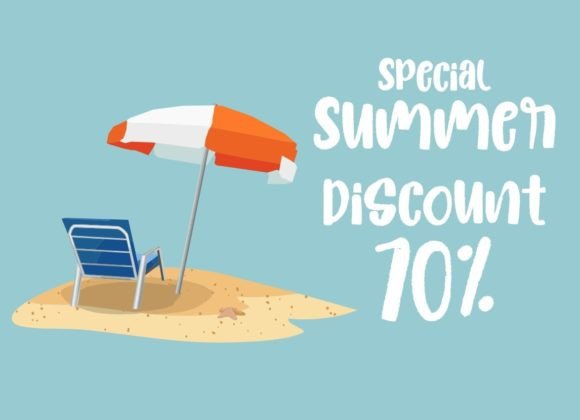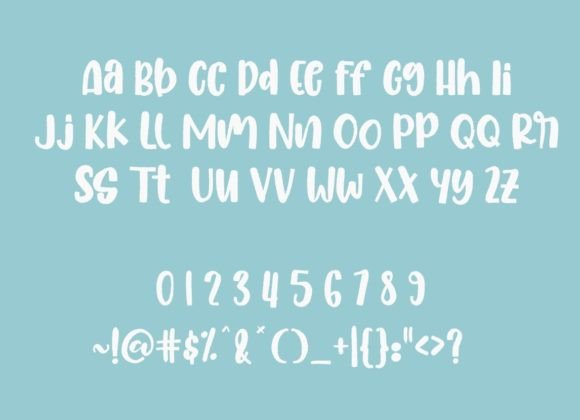
Discover the Perfect Blend of Playful and Professional: Barbie Brush Font
Have you ever found yourself rummaging through your font collection, searching for that one perfect typeface to bring your design project to life? I know I have. It’s that moment when inspiration strikes, and you envision a beautiful, bold, and expressive font that makes your design stand out. That’s exactly what you get with the Barbie Brush Font.
This versatile font is designed to be both playful and professional, making it the perfect addition to your design arsenal. With its thick and solid lines, it’s easy to read and understand, while its conservative bends ensure that it doesn’t overwhelm the eyes. Whether you’re working on a creative project or a corporate design, the Barbie Brush Font is a valuable asset that will elevate your work to the next level.
Barbie Brush Font Key Features
- Font Family: A handwritten script font, designed to mimic the look of a child’s brush strokes.
- Unique Characteristics: The font features a playful, whimsical feel, with subtle imperfections and variations that give it a hand-drawn look.
Barbie Brush Font Review
Overall, I think the Barbie Brush Font is a fun and playful addition to any design project. Here’s what I like about it:
- ✨ Unique and whimsical feel that’s perfect for kids’ projects or feminine branding
- ✨ Customizable with a range of colors and font sizes
- ✨ Great for creating a cohesive brand identity with its matching set of illustrations
- ⚠️ May not be suitable for professional or formal branding due to its playful nature
- ⚠️ Limited in its versatility – it’s best suited for projects that require a feminine or whimsical touch
- ⚠️ Some users may find the font too cursive or difficult to read at small sizes
Overall, I think the Barbie Brush Font is a great choice for designers who want to add a touch of personality to their projects. While it may not be suitable for every project, it’s a fun and versatile font that’s sure to bring a smile to your face.
The Barbie Brush Font is ideal for creating playful, whimsical designs. Use it for:
– Children’s book illustrations
– Party invitations
– Handmade craft labels